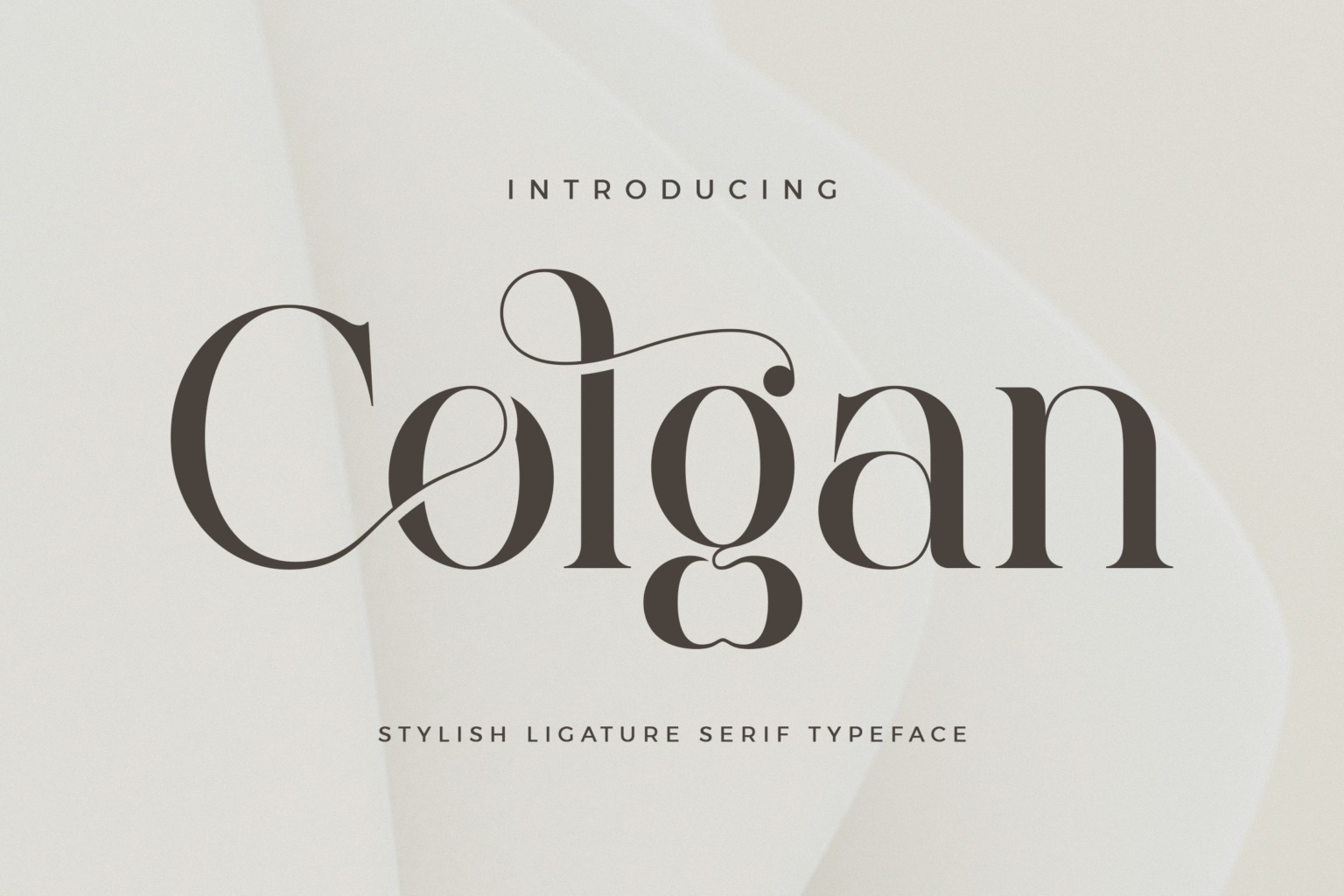
Colgan – Elegant Serif Font
Colgan – Elegant Serif Font is a premium-quality font developed to enhance your work with a polished, modern, and visually elevated look. Colgan Stylish Ligature Typeface, inspired by the famous minimalist logo perfect for the purposes of designing templates, brochures, videos, advertising branding, logos and more.